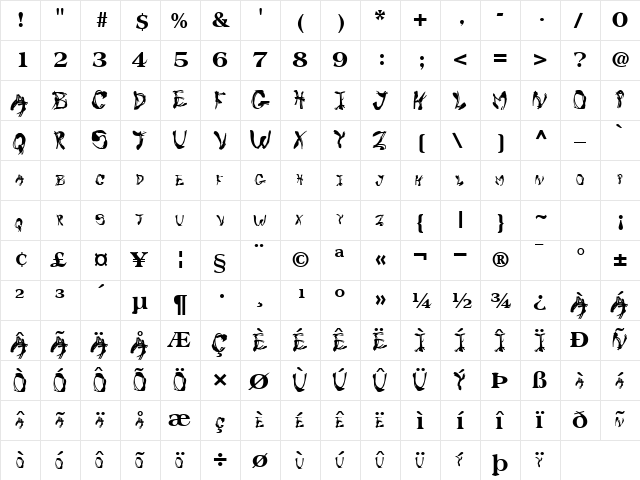
Sticker Regular
Design Context for Sticker Typeface
Sticker is a composed and adaptable typeface that performs quietly and consistently across a wide range of design contexts.